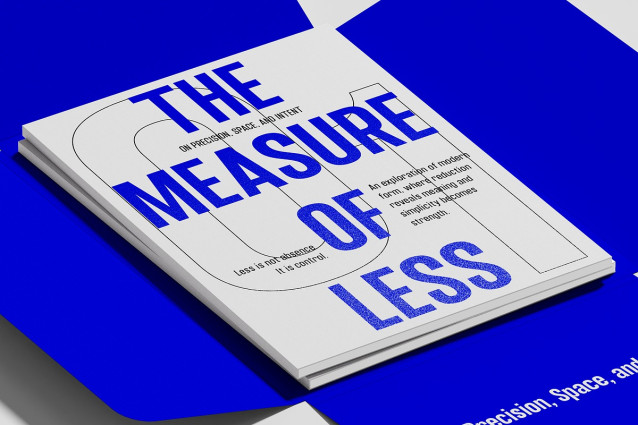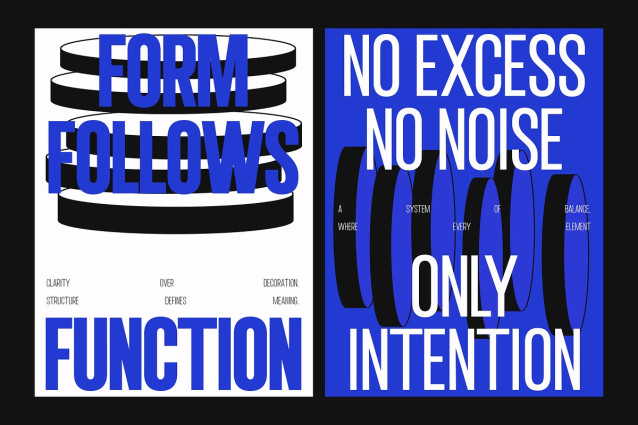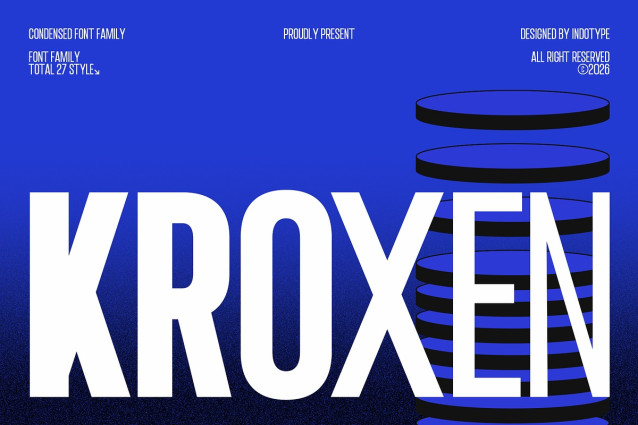
IT Kroxen Font
IT Kroxen Font is a condensed sans-serif font family of exceptional range and industrial precision. Designed by Indotype, Kroxen delivers 27 styles across a comprehensive weight and width spectrum — making it one of the most versatile condensed type systems available for contemporary design. Where most condensed fonts offer a narrow slice of typographic possibility, Kroxen provides a complete design toolkit: from whisper-thin compressed styles to brutally heavy ultra-condensed display weights, all unified by a coherent geometric vision and an unmistakable character built for high-impact visual communication.